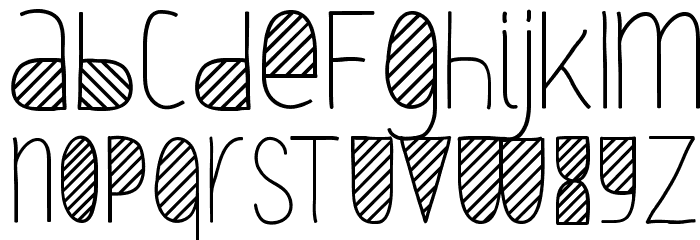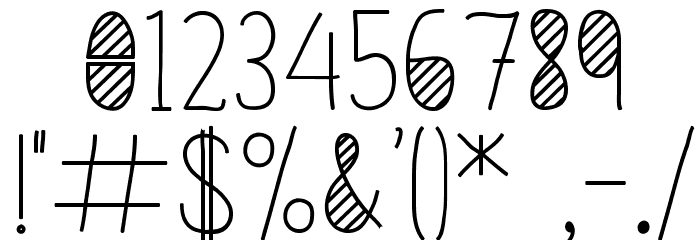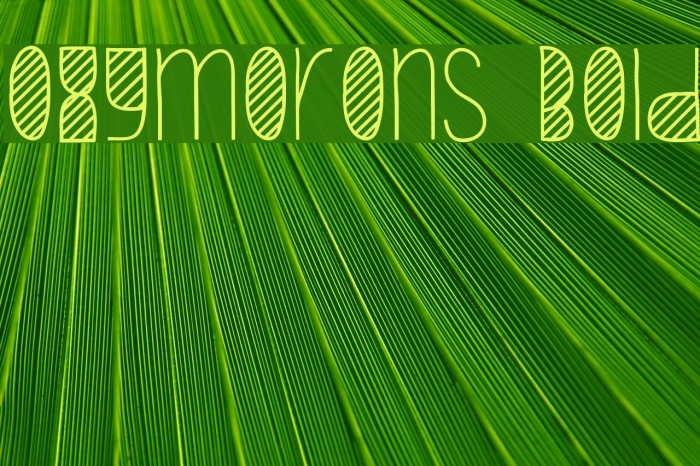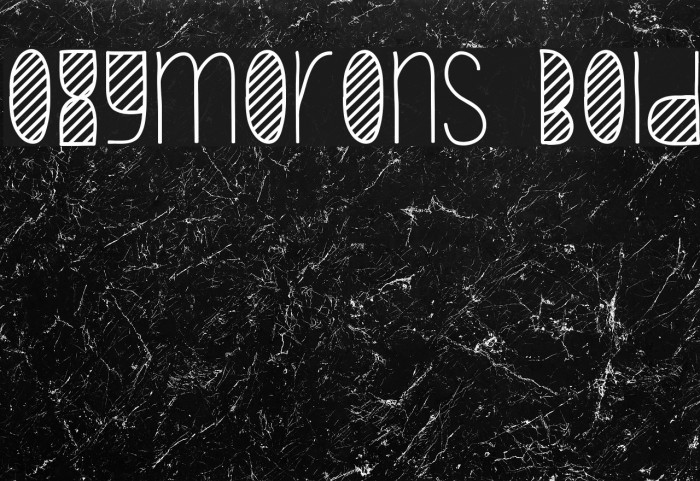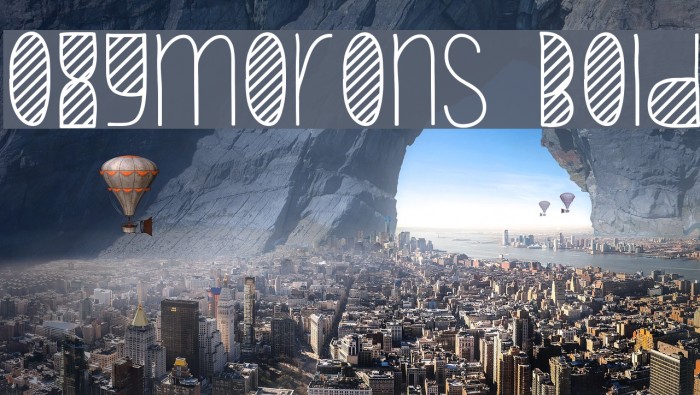
Oxymorons Bold Font
This font features a playful and whimsical design with a unique combination of outlined and filled elements. The uppercase letters are characterized by a mix of solid and striped patterns, giving them a dynamic and eye-catching appearance. The lowercase letters maintain a more consistent style with subtle variations in line thickness, adding to the overall charm. The numerals and special characters follow the same playful theme, making this font ideal for creative and informal projects. Its distinct style is perfect for capturing attention and conveying a sense of fun and creativity.
A playful, whimsical font with a mix of outlined and filled elements, ideal for creative projects.
- Proposed Projects: Great for children's books, playful branding, party invitations, and creative posters.
- Overall Style: Playful, Whimsical
- Use Case: Headlines, Logos, Creative Projects